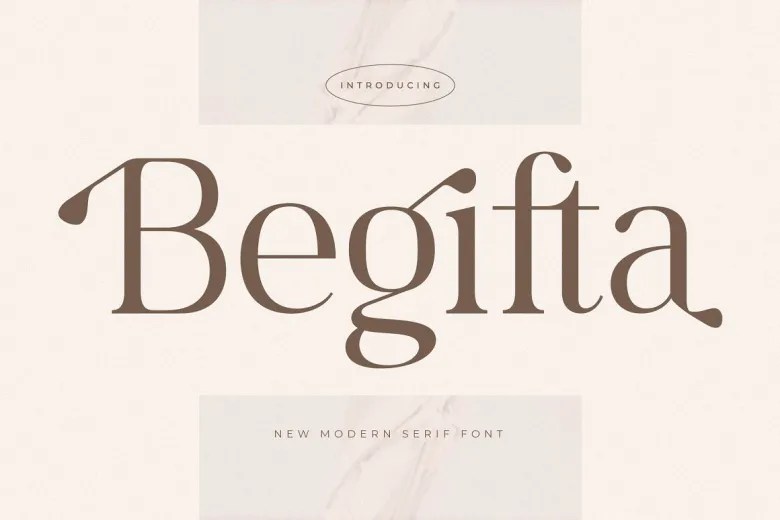
Begifta Font
Begifta, crafted by Letterena, is a sophisticated modern serif font ideal for a variety of high-end design projects. Its elegant serif style makes it perfect for logos, branding, and homeware designs. Whether you’re working on packaging, posters, quotes, shopping bags, T-shirts, book covers, name cards, greeting cards, invitations, labels, watermarks, or special event photography, Begifta delivers a touch of refined style.